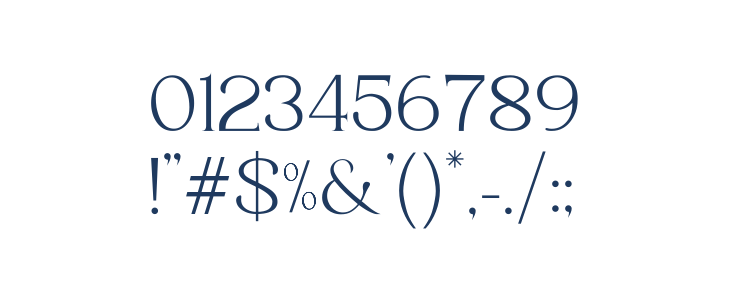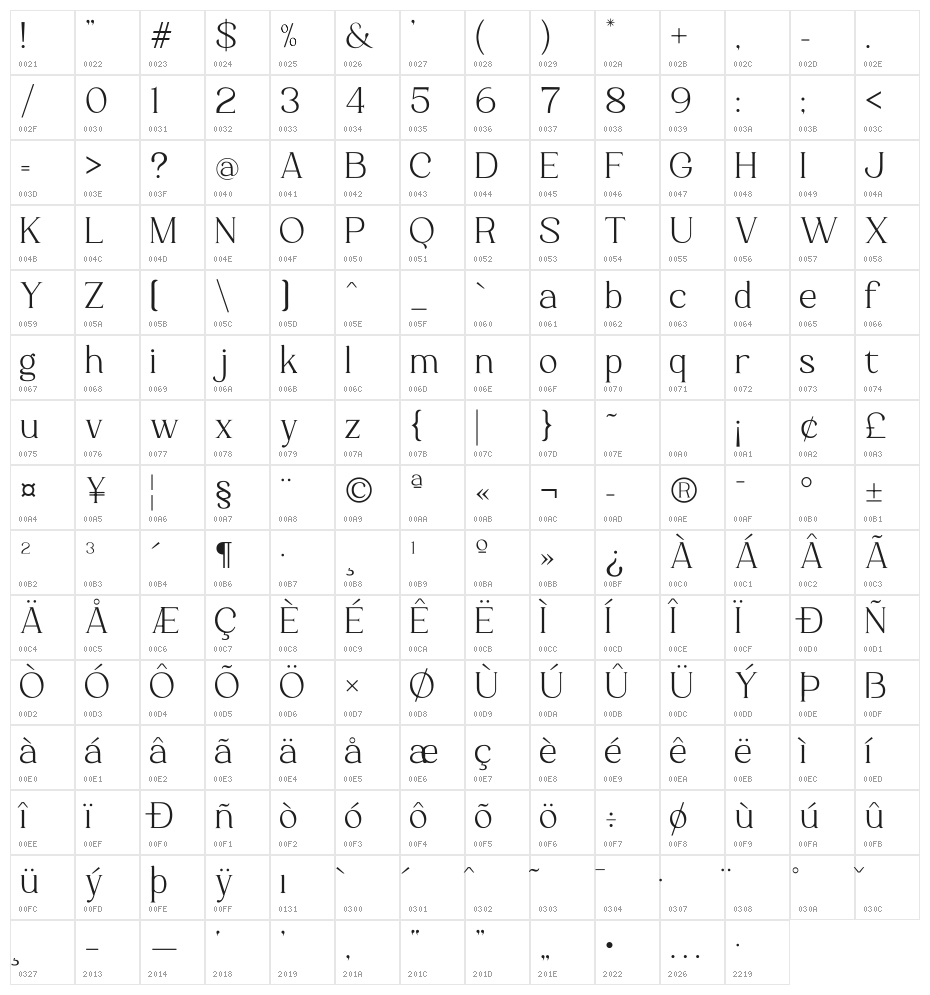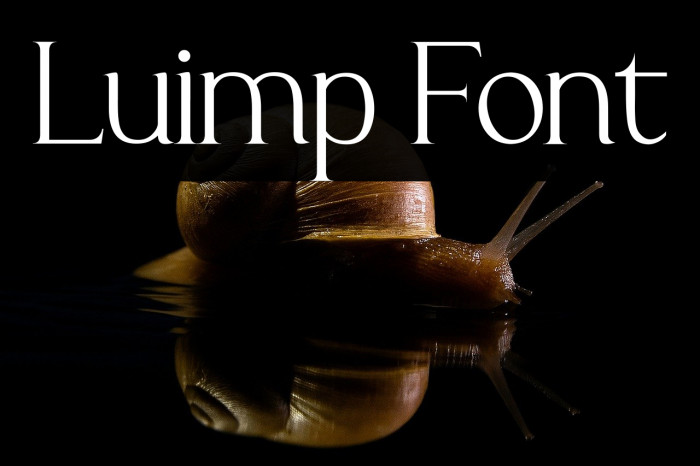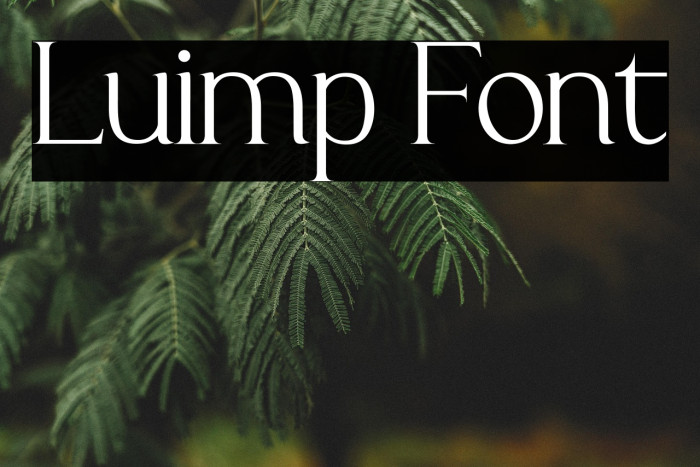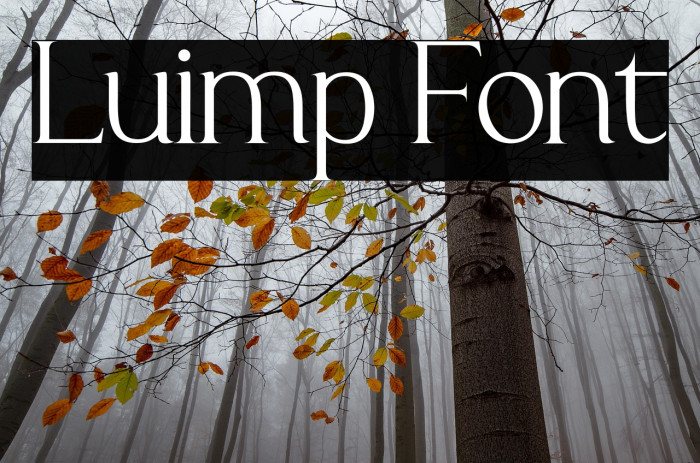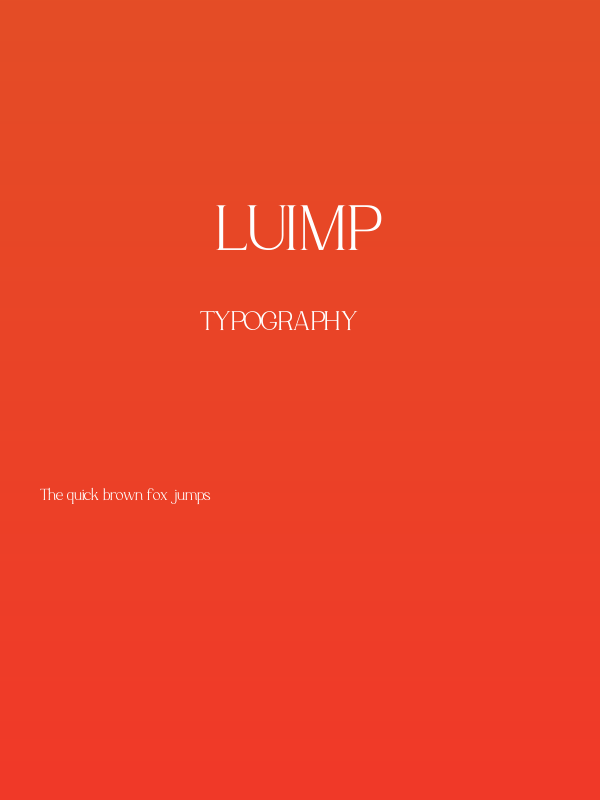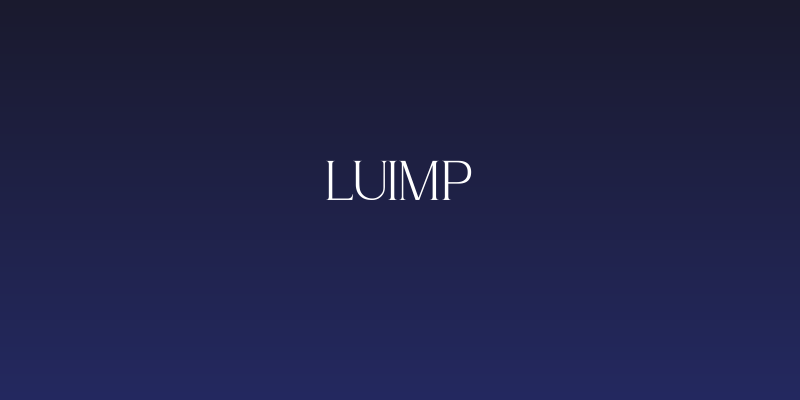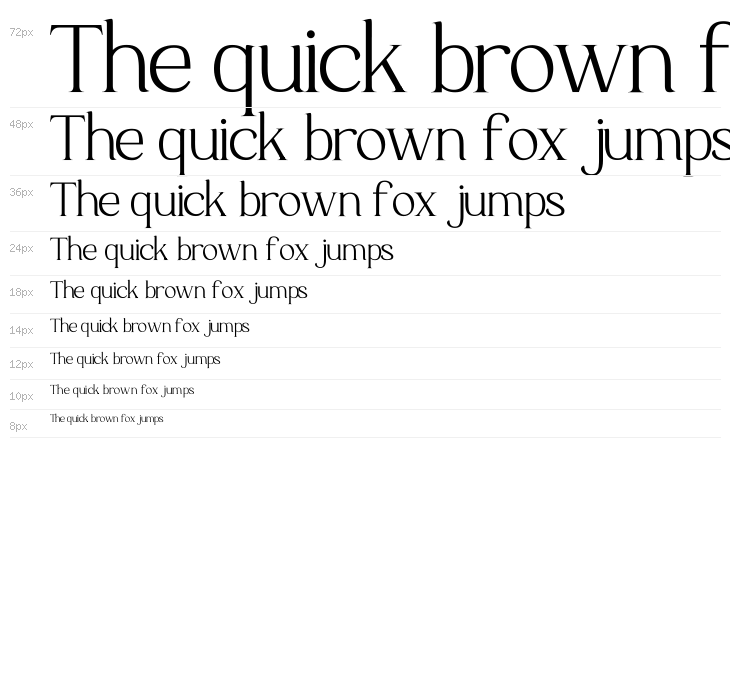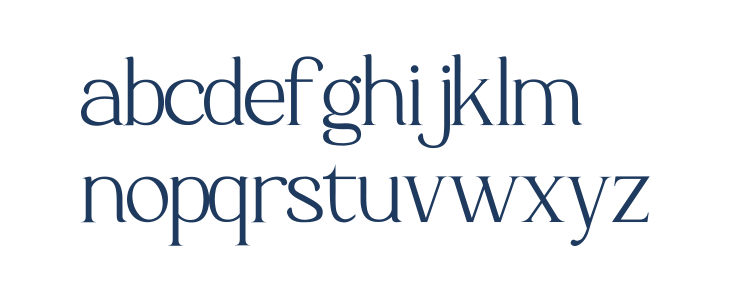
Luimp Font
Luimp Description
This font exhibits a refined and elegant serif style, characterized by its thin, elongated strokes and subtle curves. The uppercase letters are tall and stately, with a classic feel that is both timeless and sophisticated. The lowercase letters maintain a consistent style, with a slight contrast in stroke thickness that adds to the overall elegance. The numerals are well-proportioned and align seamlessly with the alphabetic characters. Special characters are designed with the same attention to detail, ensuring a cohesive look across all glyphs. This font is ideal for projects that require a touch of class and sophistication.
Overall StyleClassic
Proposed ProjectsIdeal for luxury branding, editorial design, wedding invitations, and high-end product packaging.